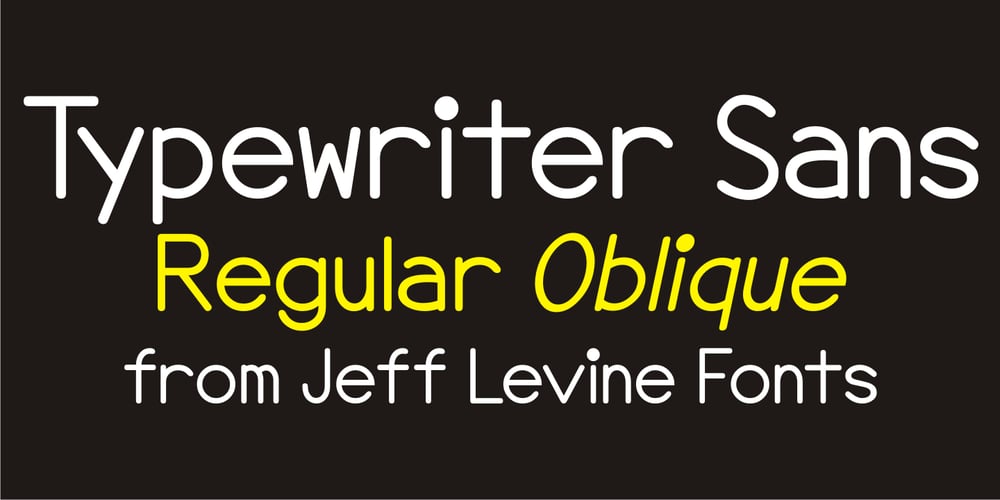
Typewriter Sans JNL Font Family was designed by Jeff Levine and published by Jeff Levine. Typewriter Sans JNL contains 2 styles and family package options. At first glance, Typewriter Sans JNL seems to look like the pantograph lettering of an engraved sign or the rounded-end lettering from an architect’s templates. It might also be mistaken for plastic pin-back lettering used on some bulletin boards. In actuality, the design is based on examples of an electric typewriter ball element with a sans font named “Dual Gothic”, suggested for use “in credit reports and other financial applications”.